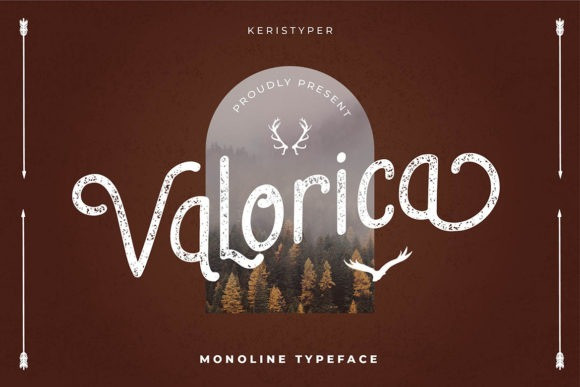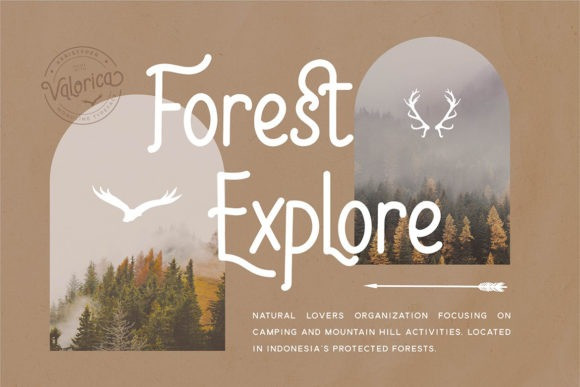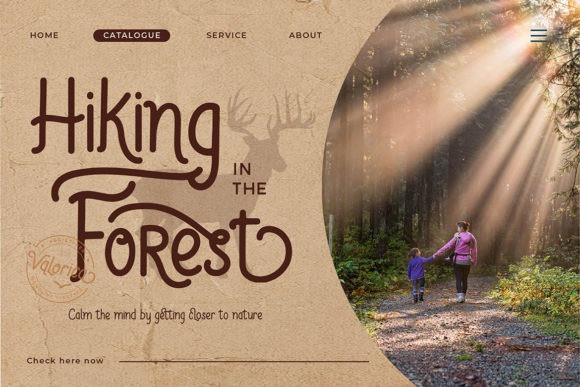
Valorica Font
Valorica is a modern design with a vintage feel. A monoline display font that combines classic & modern styles. This font is good for logo design, Social media, Movie Titles, Books Titles, short text even long text letters, and good for your secondary text font with sans or serif.